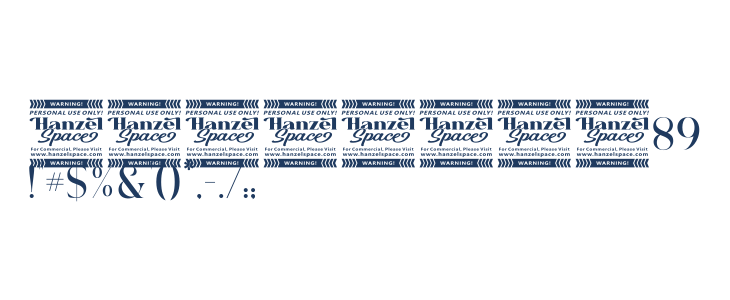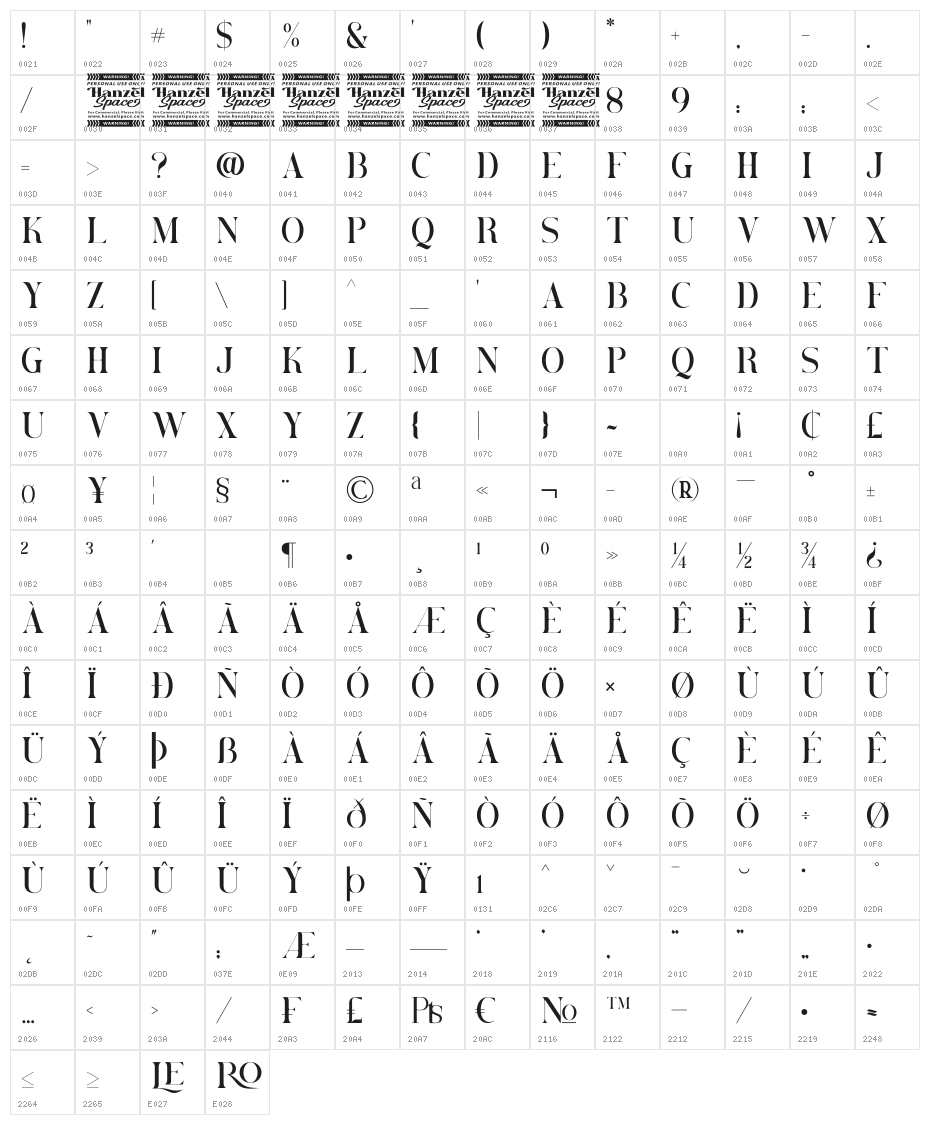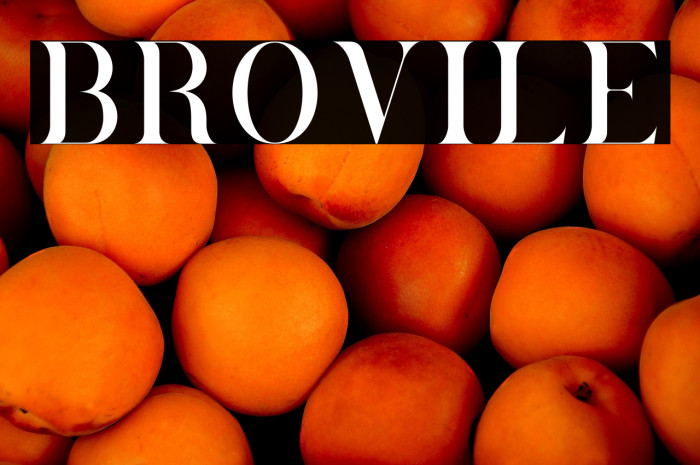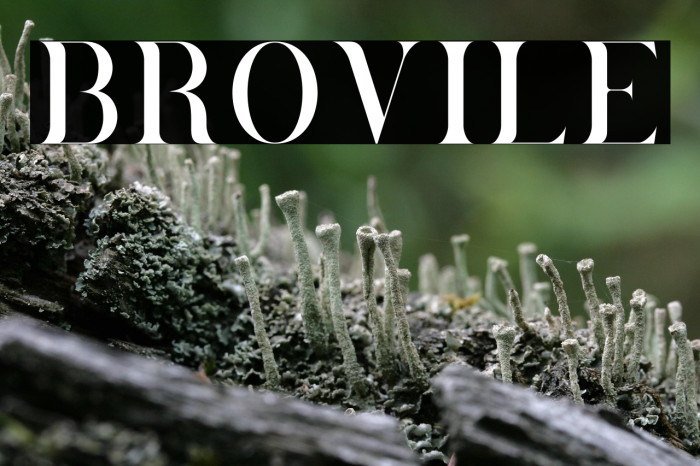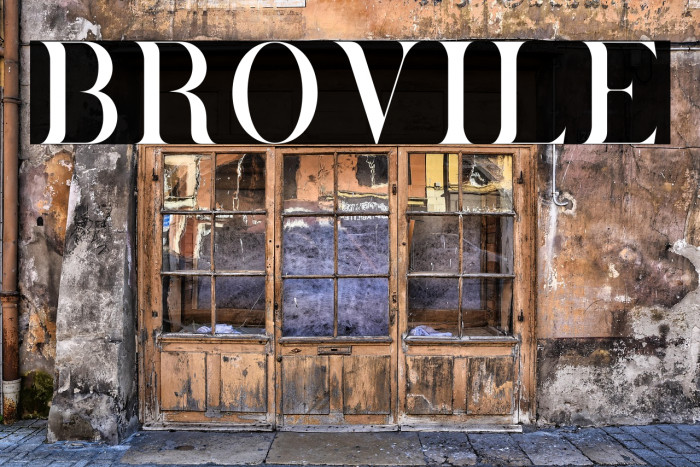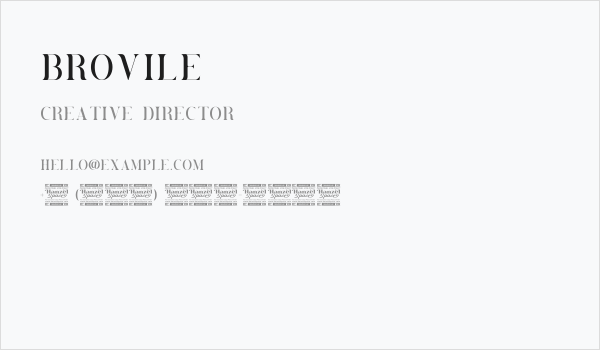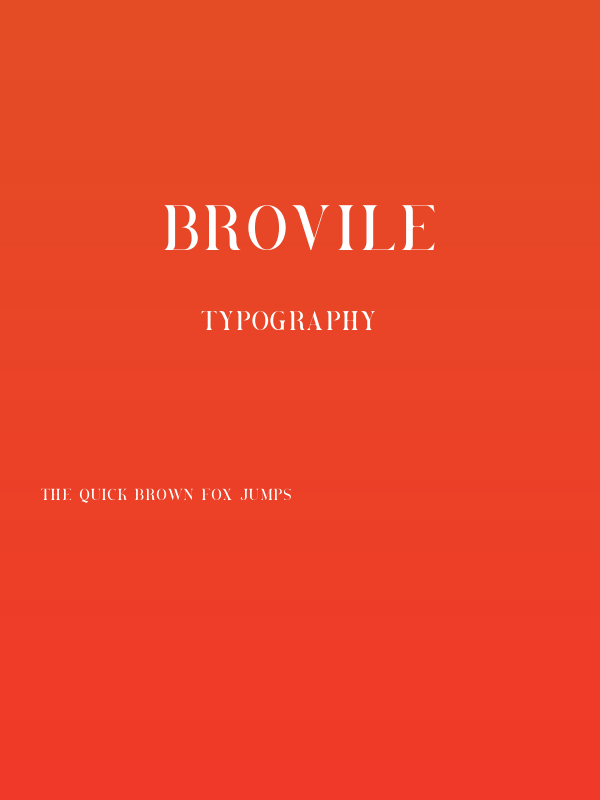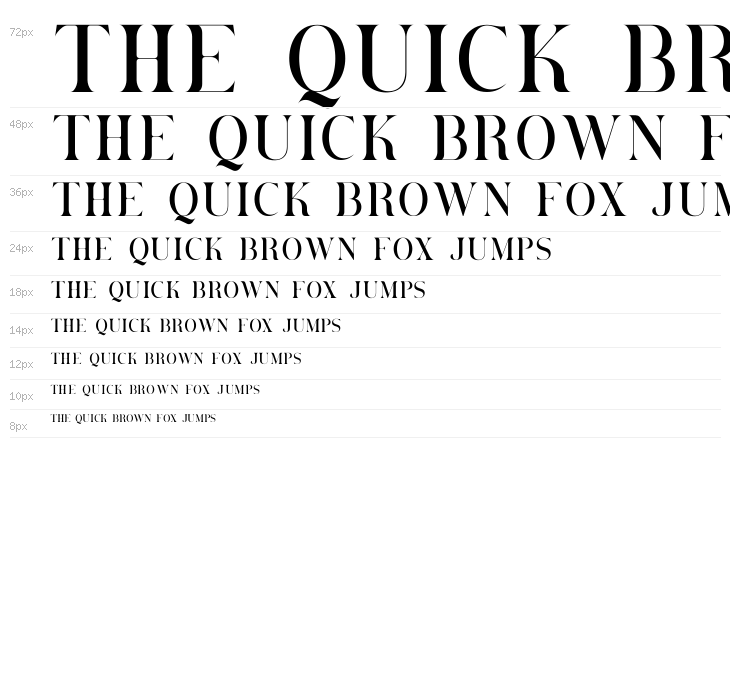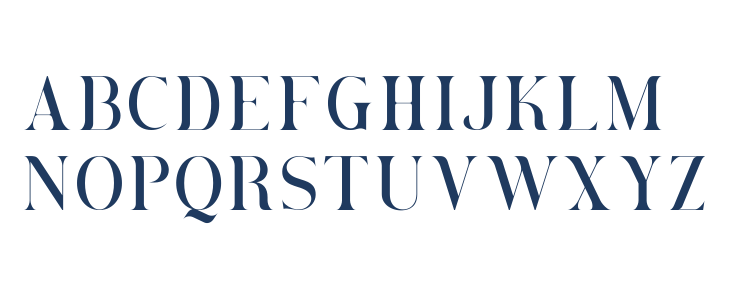
Brovile Font
Brovile Description
This font features a classic serif style with elegant, high-contrast strokes that give it a sophisticated and timeless appearance. The uppercase letters are bold and commanding, with sharp serifs that add a touch of refinement. The lowercase letters maintain a consistent style, offering a harmonious balance between the characters. The numerals are clear and distinct, making them easily readable. Special characters are designed with the same attention to detail, ensuring they blend seamlessly with the rest of the font. Overall, this font exudes a sense of elegance and tradition, making it suitable for a variety of formal and professional applications.
| Overall Style | Classic |
| Use Case | Headlines, Logos, Editorial Design |
| Proposed Projects | Ideal for formal invitations, editorial design, branding, and luxury product packaging. |